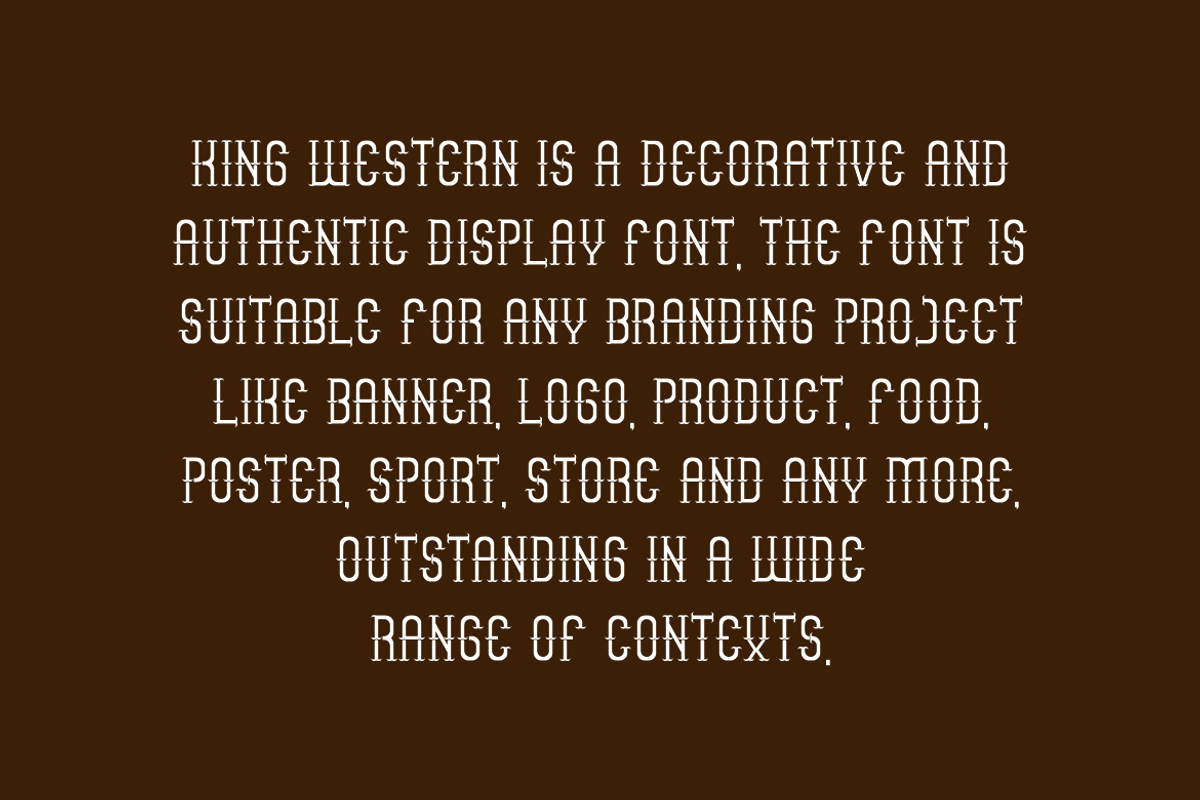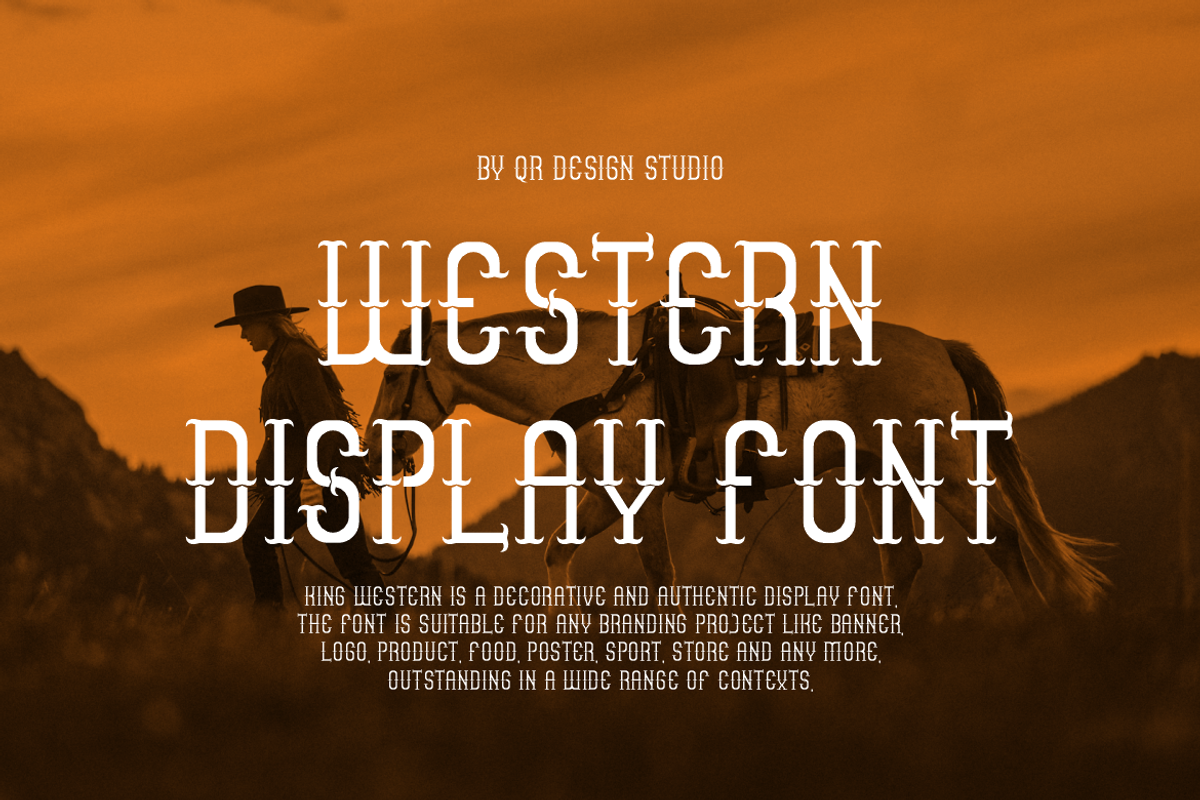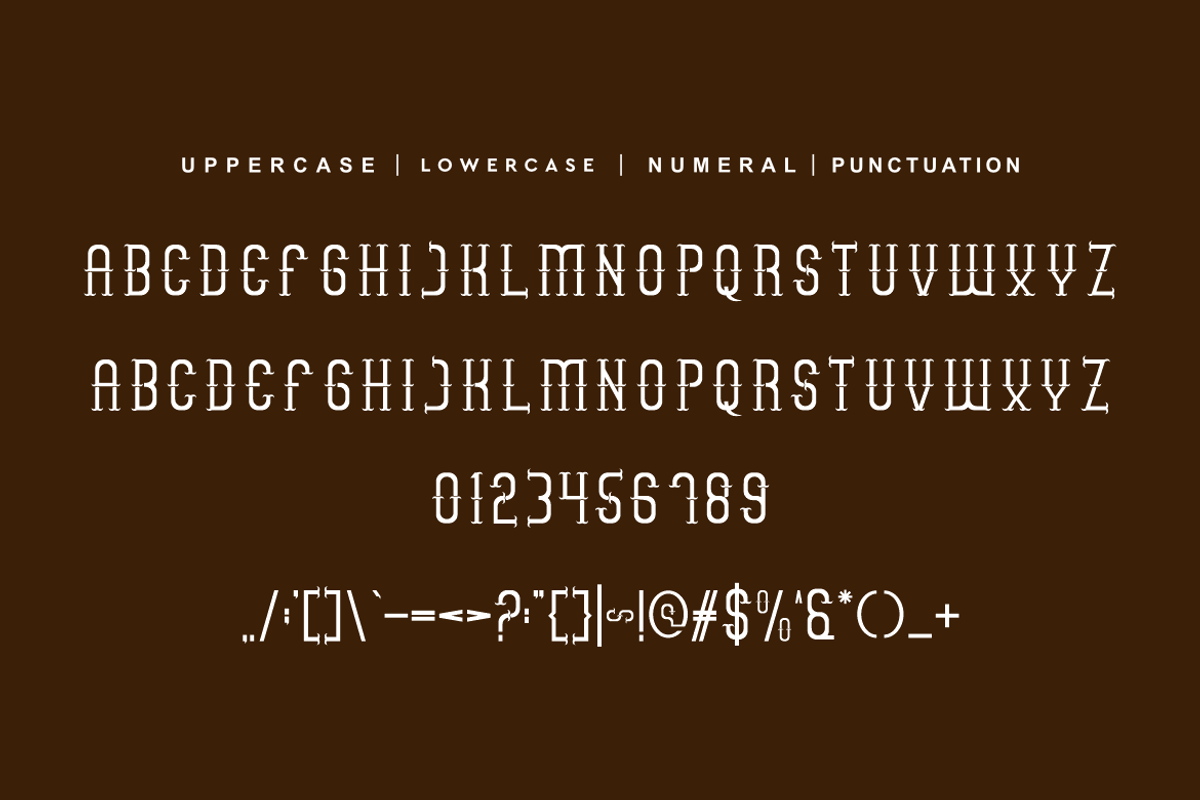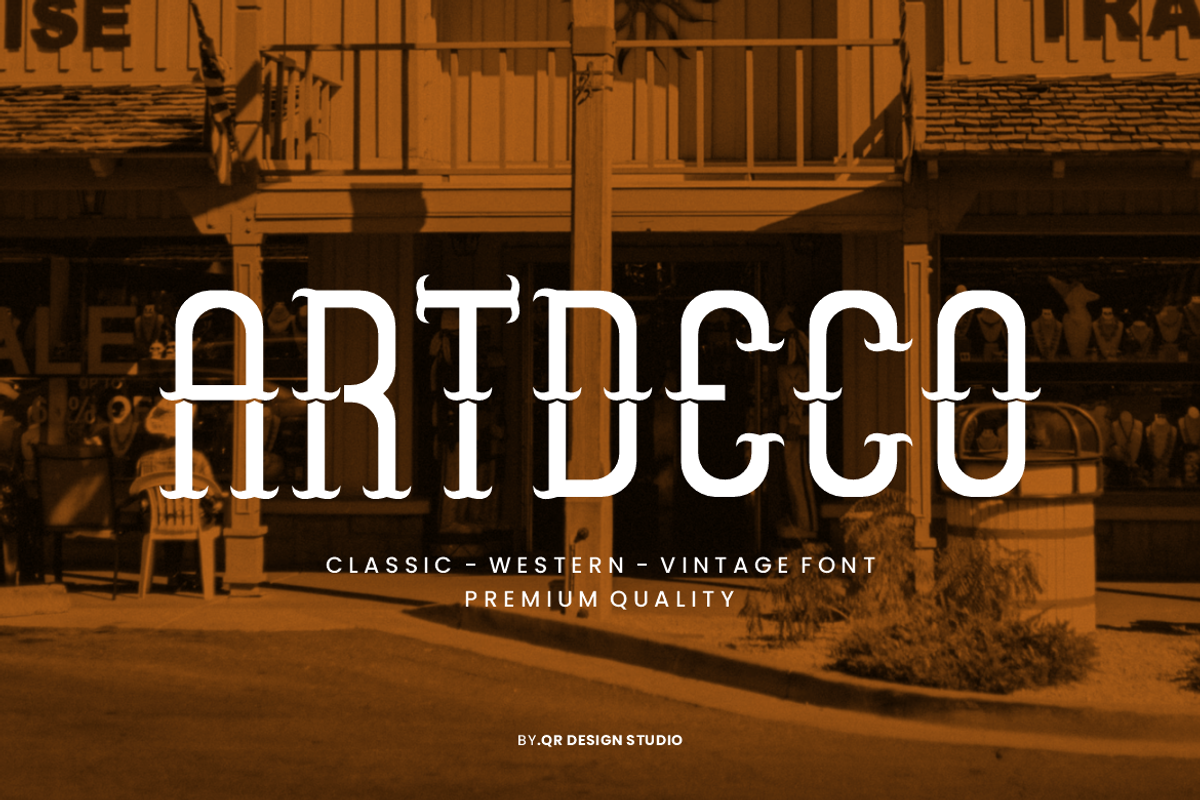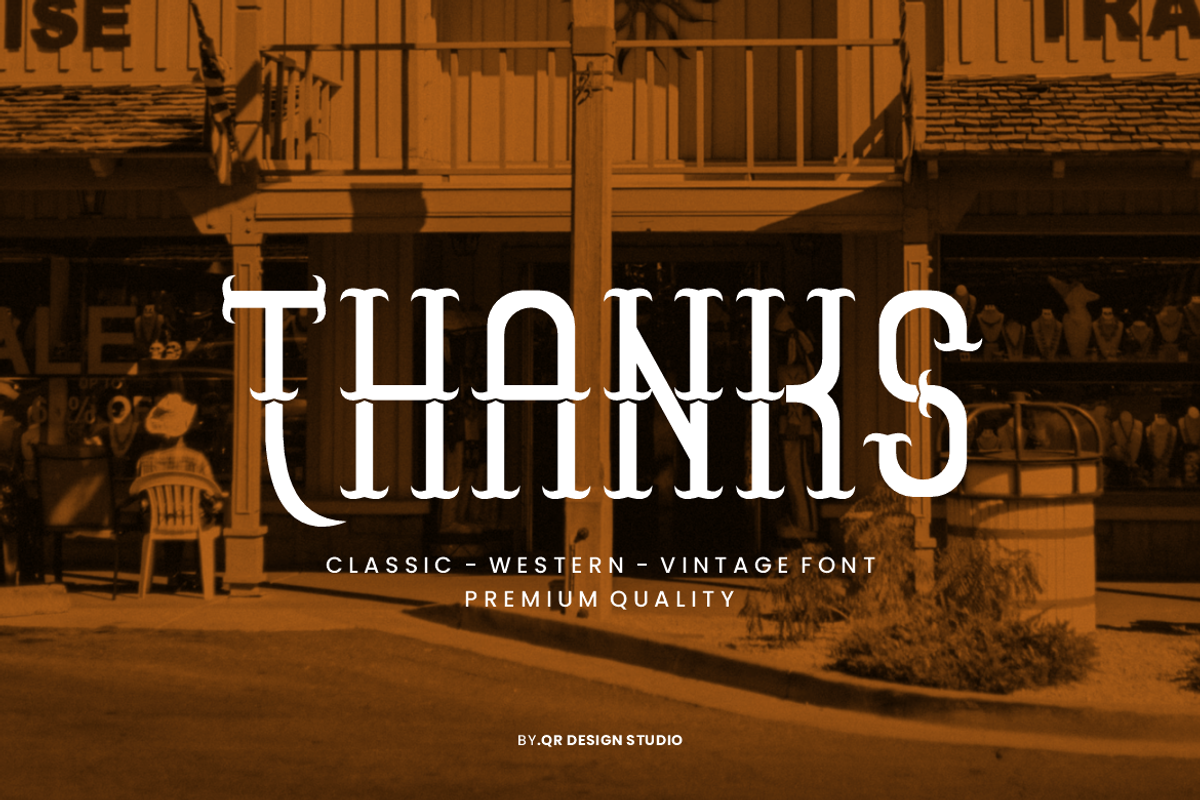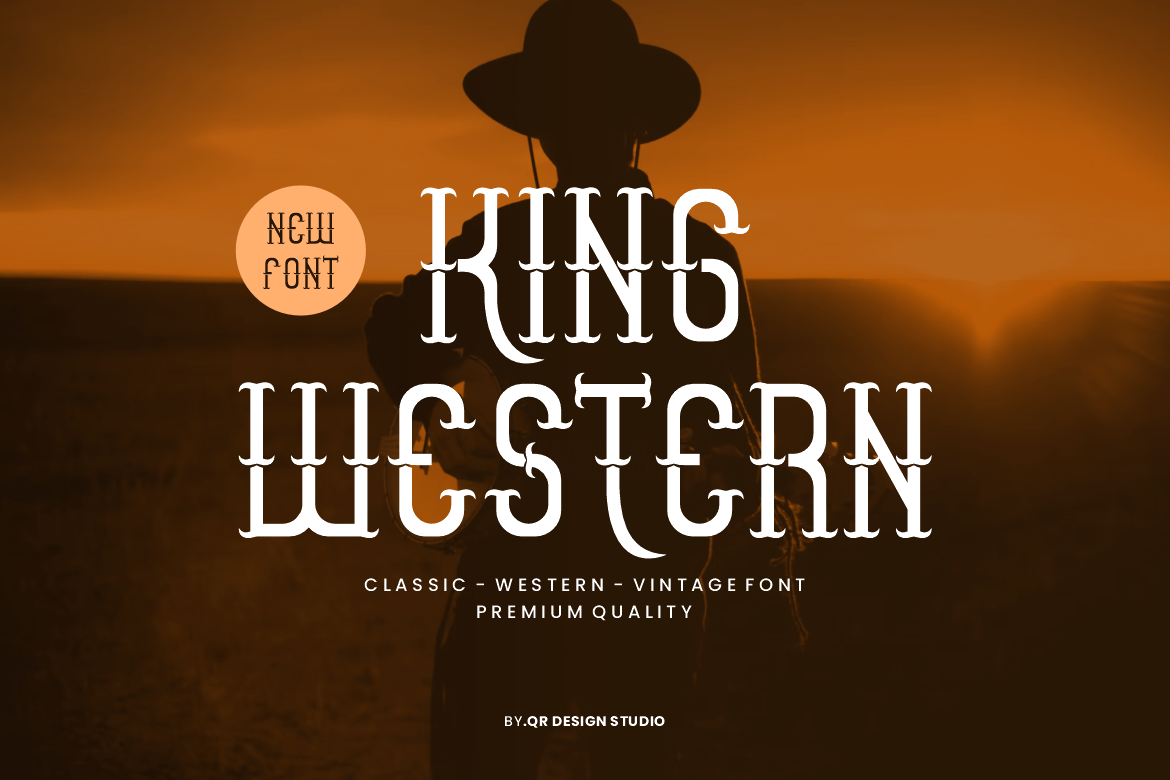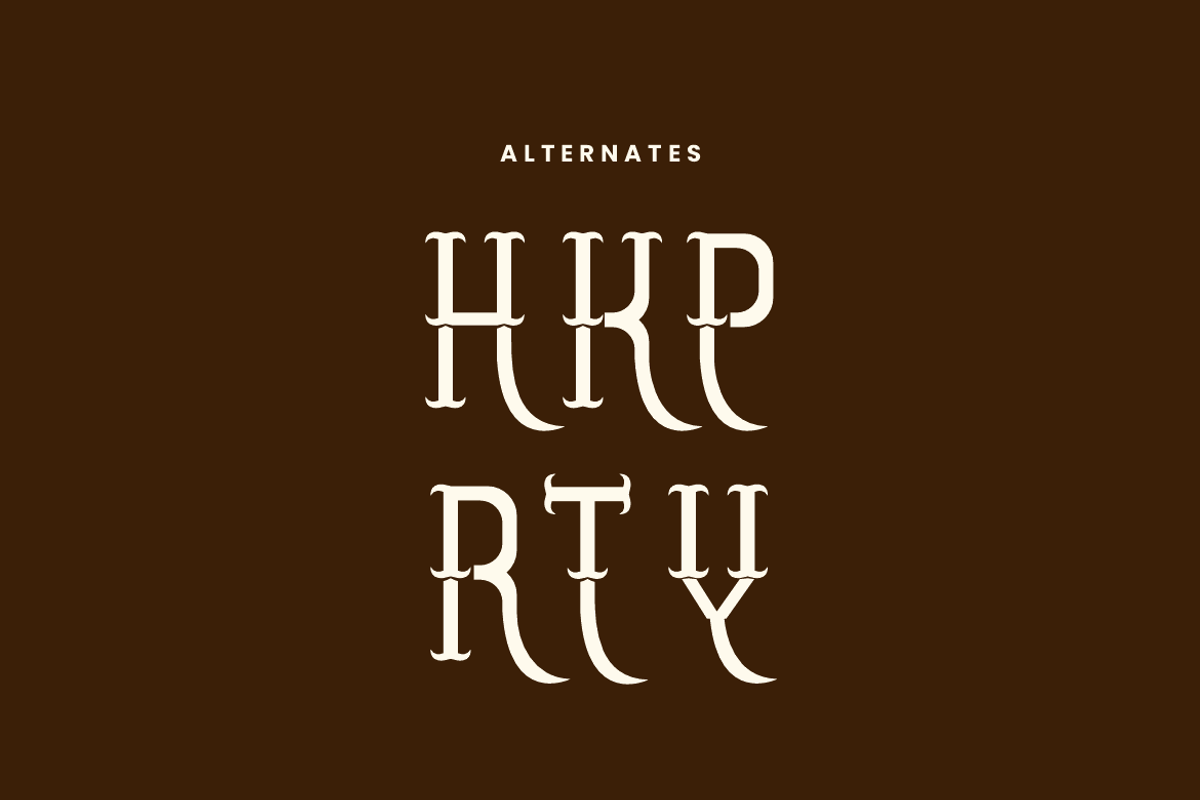
King Western - Artdeco Typeface Font
King Western - Artdeco Typeface Font is a decorative and authentic display font. The font is suitable for any branding project like poster, logo, sport, and many more. Outstanding in a wide range of contexts.